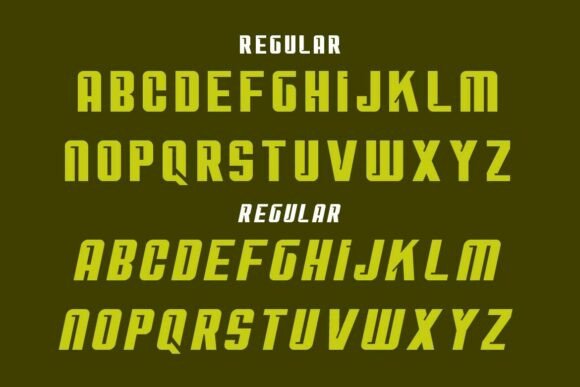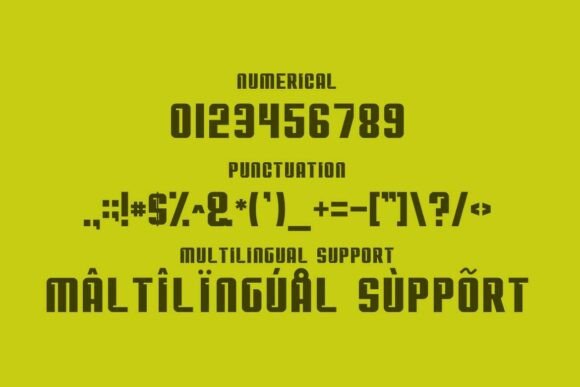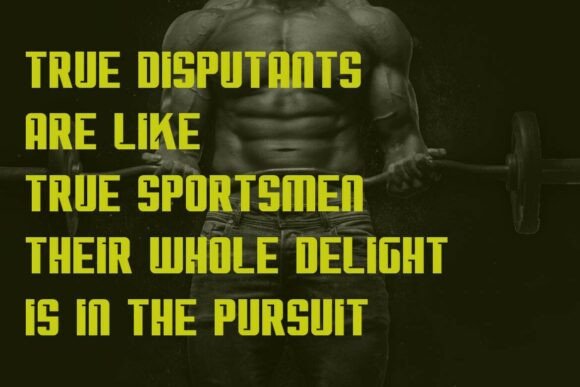
Introduction to Randu Font
As a designer, have you ever struggled to find the perfect font to elevate your creative project? The blank page stares back, taunting you with endless possibilities. But what if you stumbled upon a font that not only stands out but also speaks clearly, leaving a lasting impression on your audience?
Enter Randu Font, a confident sans serif font that’s about to revolutionize your design game. With its solid lines, sturdy structure, and geometric precision, Randu Font delivers a bold, modern look that’s perfect for branding, editorial headlines, posters, packaging, and sports or tech-inspired designs.
Key Features of Randu Font
- Unique characteristics: bold, modern, and minimalist aesthetic
- Perfect for designers seeking a versatile and stylish font for their design projects
Honest Review: Randu Font
As a designer, I’m always on the lookout for high-quality design resources to enhance my creative projects. Recently, I came across the Randu Font, and I must say, it’s been a game-changer for me.
- ✨ Unique Design: The Randu Font boasts a unique, modern design that sets it apart from other fonts. Its clean and minimalist aesthetic makes it perfect for a wide range of creative projects.
Overall, I’m thoroughly impressed with the Randu Font. While it may have a few limitations, its unique design and free download make it an excellent addition to any designer’s toolkit. I highly recommend it for any creative project that requires a high-quality, modern font.
Randu Font is perfect for:
- Infographics and data visualization
- Marketing materials and advertisements
Comparison to Randu Font: Pacifico Font has a more elegant and refined feel compared to Randu Font’s modern and playful vibe.
Comparison to Randu Font: Great Vibes Font has a more vibrant and energetic feel compared to Randu Font’s more subdued tone.
Comparison to Randu Font: Dancing Script Font has a more classical and refined feel compared to Randu Font’s modern and playful vibe.